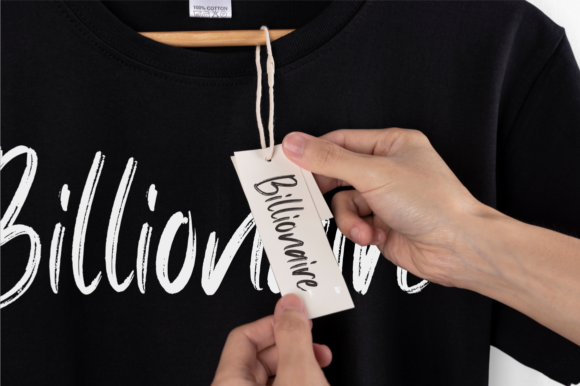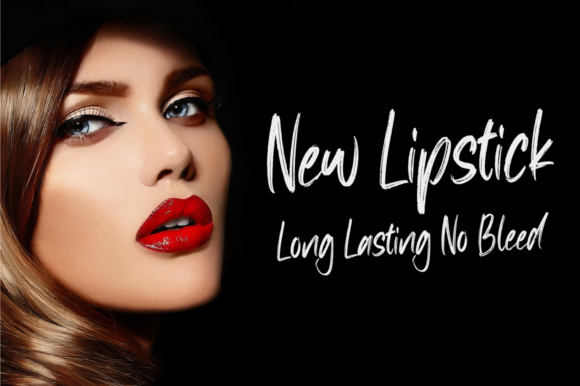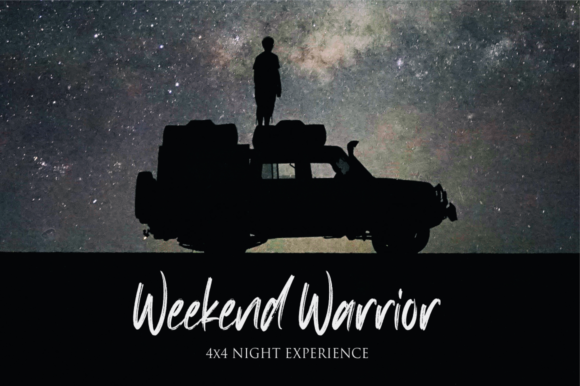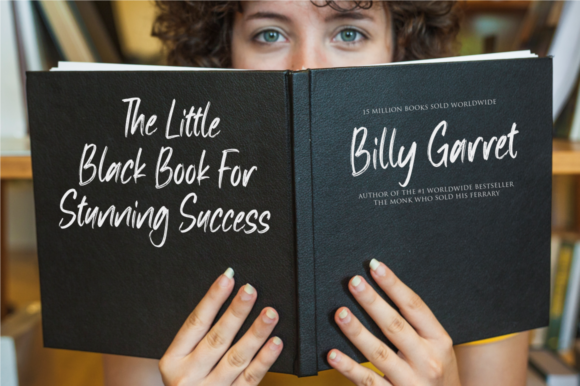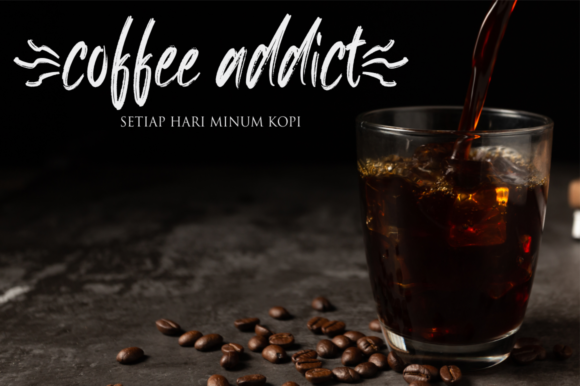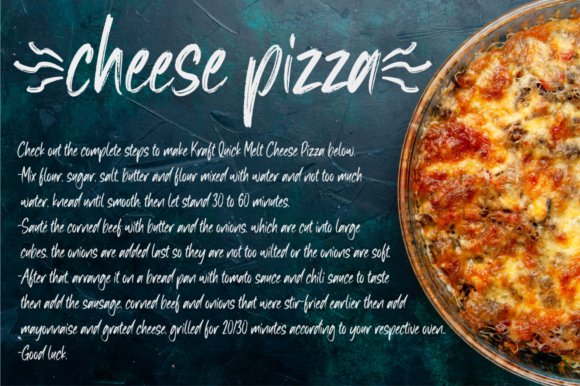
Get Ready to Unleash Your Creativity with the Brush Effect Font
You’ve finally landed on the perfect idea for your next Instagram post, and you can’t wait to share it with the world. The words flow effortlessly, the visuals are stunning, and the message is clear. But, there’s one thing missing – the perfect font to bring it all together. That’s where the Brush Effect Font comes in – a beautiful, hand-drawn font that adds a touch of personality to any design.
Whether you’re a seasoned designer or a DIY enthusiast, the Brush Effect Font is the perfect tool to elevate your creative projects. With its unique, brushed handwritten style, it’s ideal for creating eye-catching headlines, calligraphy scripts, and even social media graphics. The Brush Effect Font is more than just a font – it’s a way to express yourself and make your designs truly stand out.
Brush Effect Font Key Features
- Unique Brush Stroke Effect: The font features a distinctive brush stroke effect that gives it a hand-painted look, adding a touch of personality to any design.
- Unique Character Set: The font includes a unique set of characters, including Latin, Cyrillic, and Greek alphabets, as well as punctuation and symbols.
- Perfect for Creative Projects: The Brush Effect Font is ideal for creative projects, such as logos, branding, and advertising, where a unique and eye-catching design is required.
Designer Review: Brush Effect Font
Overall, I’d say the Brush Effect Font is a fun and creative addition to any design project. ✨ I love how it captures the feel of hand-painted textures, which can add a unique touch to digital designs. The font is perfect for designers looking to create a more organic and human feel in their work.
Some of the key strengths of the Brush Effect Font include:
- Its versatility: the font can be used in a wide range of contexts, from marketing materials to website design.
- Its ability to add a touch of whimsy: the font’s hand-painted texture can add a playful feel to designs that might otherwise feel too formal.
- Its customizability: the font can be easily modified to fit different design styles and preferences.
However, there are some limitations to consider: ⚠️ The font may not be the best choice for projects where a more polished or professional look is required. Additionally, the font’s texture can sometimes be distracting or overwhelming if used in large quantities.
Overall, I think the Brush Effect Font is a great choice for designers looking to add some personality to their work. With its unique texture and versatility, it’s a great addition to any design toolbox.
Getting the Most Out of Brush Effect Font
To get the most out of Brush Effect Font, experiment with different brush settings and styles to achieve unique and creative effects.
Use Brush Effect Font to add a personal touch to your designs, and to create visually appealing text elements that stand out from the crowd.
Some common use cases for Brush Effect Font include: